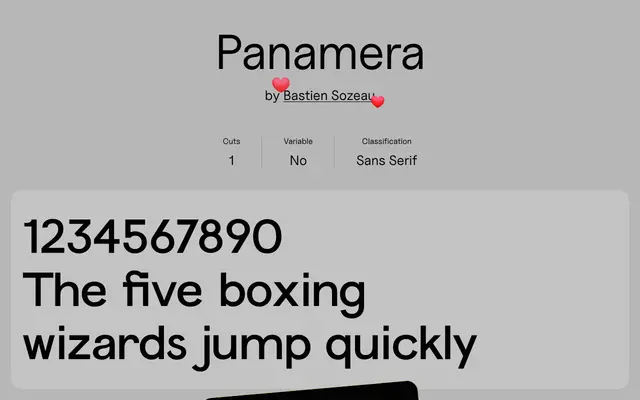
Panamera
A single-cut sans-serif by Bastien Sozeau, available free for personal and commercial use under the SIL Open Font License.
Released as a single non-variable cut, Panamera is a sans-serif typeface by Bastien Sozeau distributed under the SIL Open Font License 1.1. The licence permits commercial use, modification and redistribution with conditions. Little further technical detail is provided on the page, making it suited for straightforward text and display work at no cost.
Listed under Sans Serif classification on the page; the single-cut release and name suggest a clean grotesque or geometric sans without further subdivision indicated.